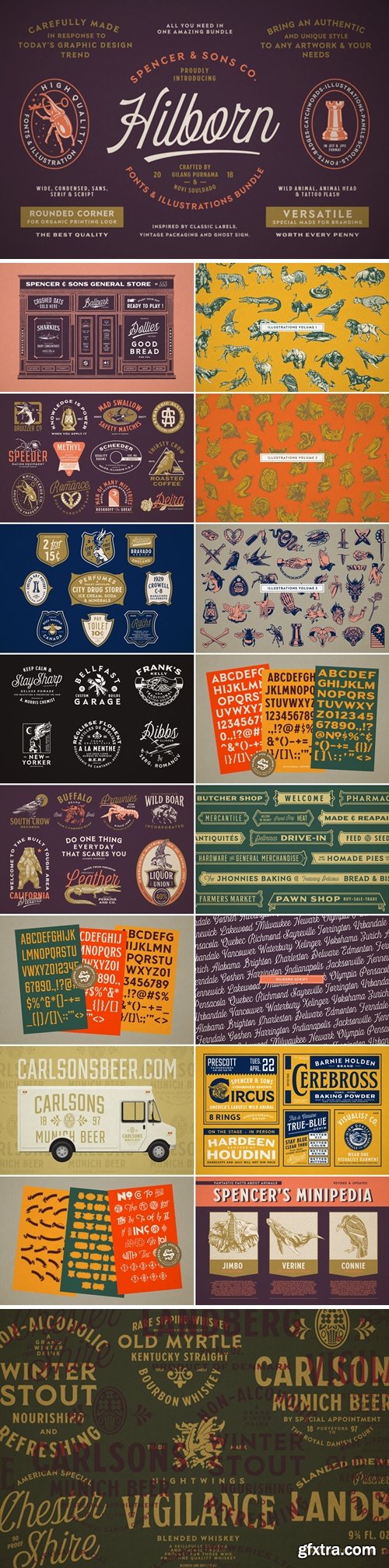
S&S Hilborn font bundle is made in response to today's graphic design trend. Inspired by classic labels, vintage packaging, and old sign painting. This bundle will add a touch of worldly knowledge to your artwork, also go hand in hand to create logos, branding, ad's, signage and more! So much inspiration as you access it. What are you waiting for, the best price and best quality we give you with pride.There's also +100 hand drawn llustration to sit perfectly with the letterform. Don't hesitate!!! All benefits you will feel when you start to create works with S&S Hilborn, borrowed from classic labels, vintage packaging, and old sign painting, would bring an authentic and unique style to any artwork.